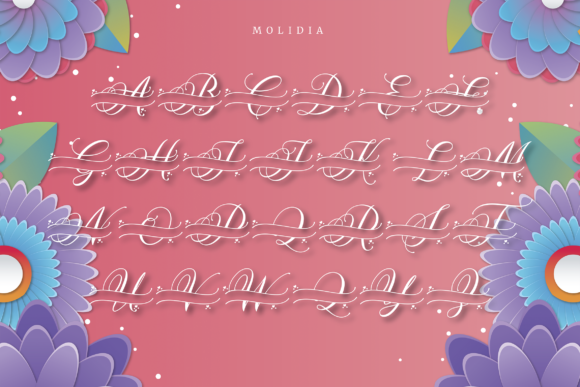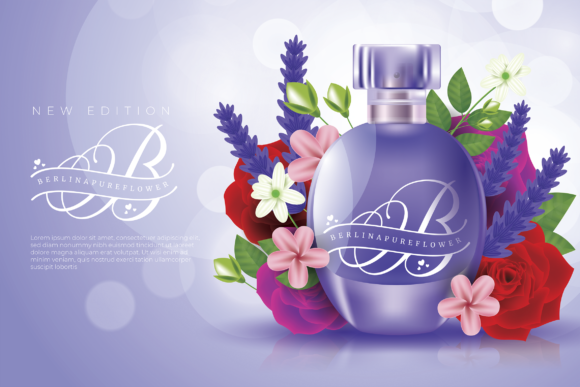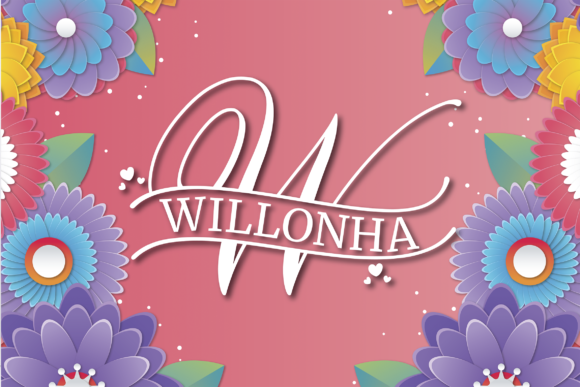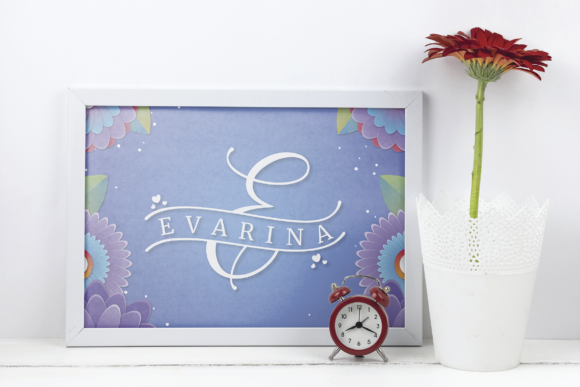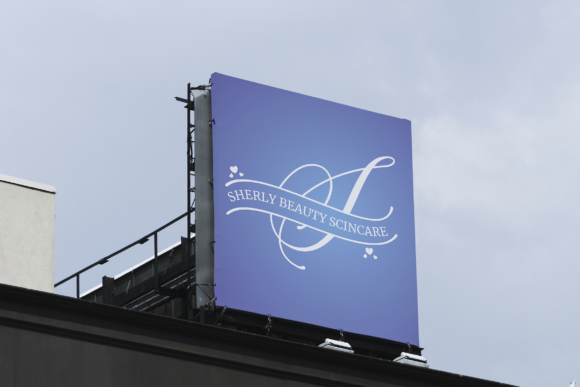
Introduction to Molidia Monogram Font
Have you ever been scrolling through your social media feeds, and a beautiful monogram catches your eye, stopping you in your tracks? That’s exactly what happened to me when I stumbled upon the stunning Molidia Monogram Font. Its elegant, hand-painted feel instantly transported me to a world of high-end design and sophistication.
As a designer, I know how valuable it is to have access to top-notch fonts that can elevate a project from good to great. The Molidia Monogram Font is one such gem, offering a unique blend of classic calligraphy and modern flair. Whether you’re working on a high-quality wedding invitation, a creative project, or simply want to add some personality to your social media posts, this font is sure to impress.
Key Features of Molidia Monogram Font
- Unique characteristics: a stylish and elegant monogram design, ideal for branding, invitations, and other creative applications.
Honest Review: Molidia Monogram Font
I recently had the chance to work with the Molidia Monogram Font, and I must say it’s a great addition to any designer’s toolkit. The font is a high-quality design resource that can elevate any creative project.
What could be improved: ⚠️
- Limited character set
- No bold or italic versions
Overall, I’m really impressed with the Molidia Monogram Font. It’s a great design resource that can help designers create beautiful, professional-looking designs. While it may have some limitations, the benefits far outweigh the drawbacks.
Getting the Most Out of Molidia Monogram Font
To maximize the use of this design resource, experiment with different font sizes, colors, and combinations. You can also use it in conjunction with other design elements, such as images or shapes, to create a unique and eye-catching design.
The Molidia Monogram Font is ideal for creating custom logos, branding materials, and social media graphics. It’s also a great resource for designers who want to add a touch of elegance and sophistication to their creative projects.